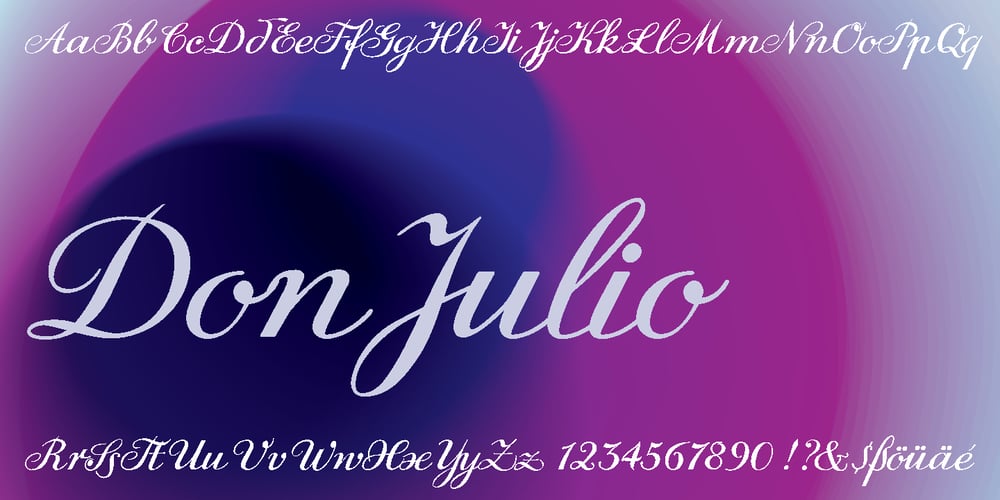
DonJulio Font Family was designed by Gert Wiescher, Julius Wiescher and published by Autographis. DonJulio contains 1 styles and family package options. DonJulio is a handwritten most-of-the-time connecting script, that dates back to the 1930s in Germany. We tried to keep it as true to the original as possible, conserving the shaky and uneven appearance of those days. DonJulio can be mixed together with its very embellished sister font Donna Julia.